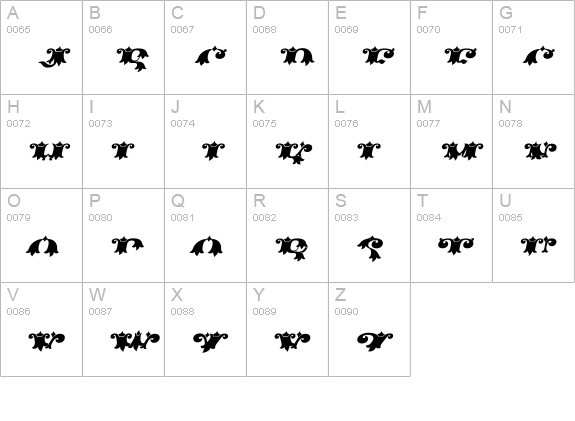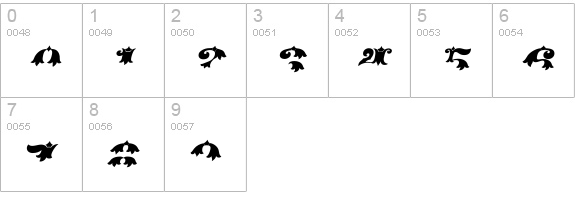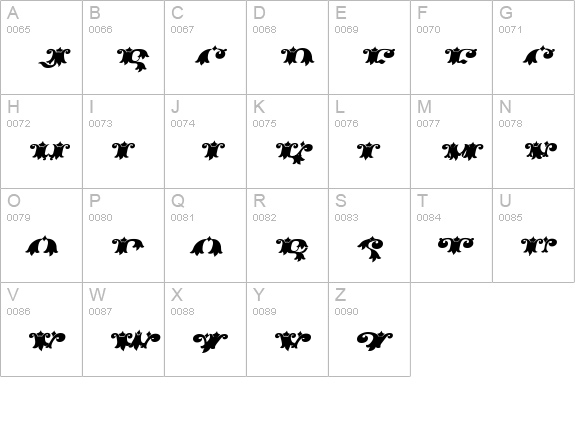
Gold Std Italic Fill Half is a distinctive, italic variant in the Gold typeface family \xE2\x80\x94 well suited to design and typography projects.
Gold Std Italic Fill Half font is a stunning display typeface that exudes elegance and sophistication. With its intricate details and graceful curves, this font is perfect for adding a touch of luxury to your design projects. The italic style adds a sense of dynamism and movement, making it ideal for creating eye-catching headlines, logos, and branding materials. What sets Gold Std Italic Fill Half font apart is its unique half-filled design, which adds an interesting visual element to any text. The gold color scheme adds a touch of opulence and glamour, making this font perfect for projects that require a touch of extravagance. Best of all, Gold Std Italic Fill Half font is available for free download at FontsMarket.com. Whether you're a designer looking to elevate your work or a business owner in need of a luxurious font for your branding, this font is sure to impress. Download it today and add a touch of gold to your design projects!